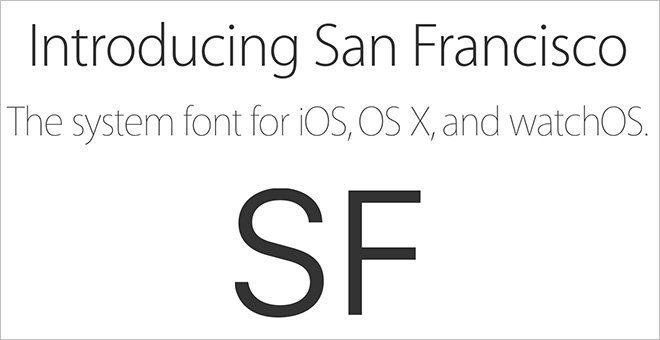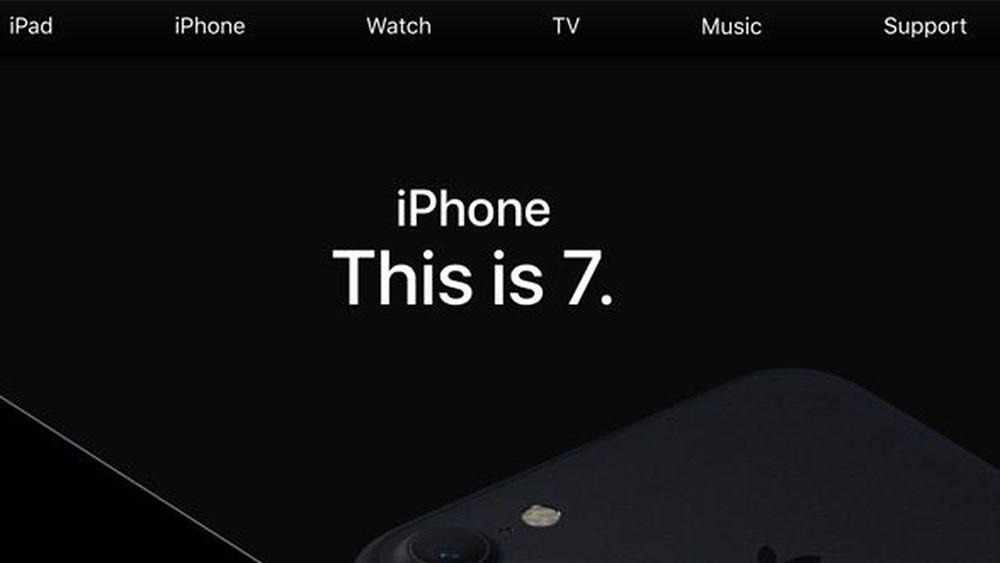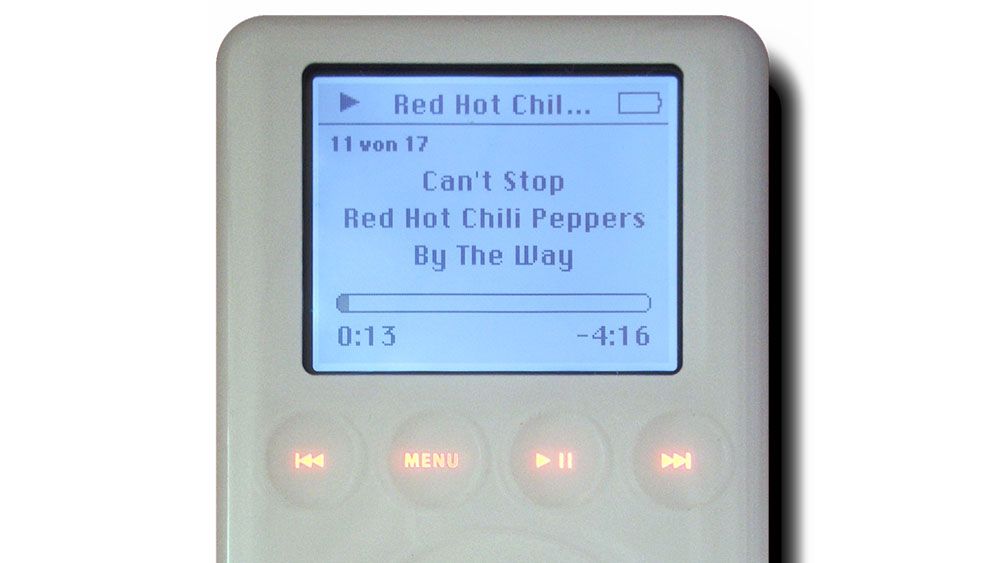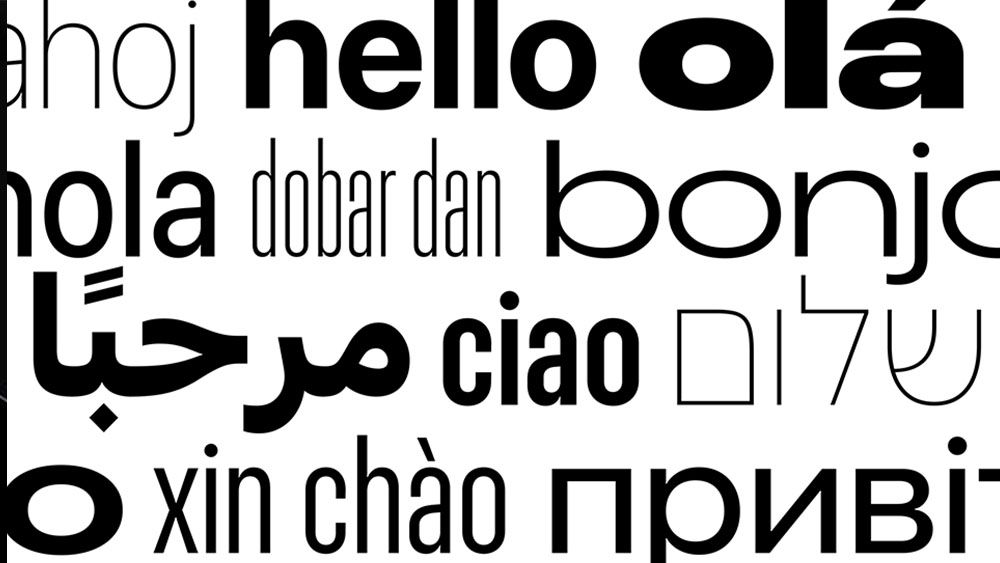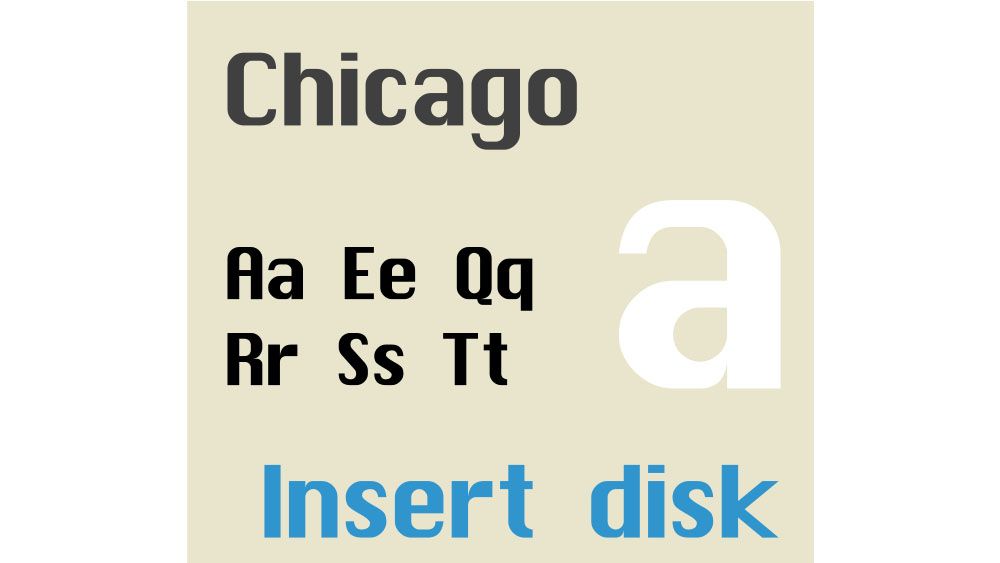
5 times Apple chose the right font (and one it got wrong)
Apple is known for sleek, minimalist design, from its products to its branding. We've already recapped the Apple logo history, but what about Apple typography? What font does Apple use to back up its brand identity?
Typography plays an important role for any brand, and that's doubly true for a tech giant like Apple, which uses type in its marketing but also in the UI design of its software. Today, Apple uses its own San Francisco typeface for both, but the Apple font history has seen some surprising and sometimes controversial decisions on the way.
A brief history of Apple fonts
This isn't an exhaustive account but six key moments in Apple typography, from its early pre-Macintosh branding to the present day brand and system typeface.
01. Motter Tektura: the future according to the late 70s
It might seem surprising now that Apple would use a non-custom typeface as its brand font, including even for its logo, but it's used subtle variations of off-the-shelf type options for much of its history.
Before the launch of the first Macintosh in 1984, the Apple logotype and product labels – most famously the Apple II – used a typeface designed by Othmar Motter of Vorarlberger Graphik in Austria 1975.
Motter Tektura might not be a household name like Helvetica or Arial, but this quirky sans serif got about a fair bit in late 1970s, making appearances in the logos of Reebok and the notebook and binder maker Trapper Keeper.
Apply modified it slightly and used the 'a' to fit into the bitemark in the Apple logo. It looks quaintly retro futurist today, but you have to imagine that in 1977 it was just futurist, conjuring up visions of an optimistic techno tomorrow.
02. Classy Apple Garamond
With the launch of the Macintosh in 1984, Apple ditched its by now slightly cartoonish vision of the future for something altogether more elegant: a narrowed custom version of a classic 17th century serif.
The brand would use Apple Garamond in its marketing for 18 years, minus a brief dally with Gill Sans. Even when Apple told us to 'think different' in the late 90s, it was with this traditional-looking font, which exudes class and refinement. The serious bookishness of the type contrasts with the vibrant colours of the rainbow Apple logo for a more mature vision of tech.
03. Modernising Myriad
Garamond might be elegant, but it screams luxury fashion more than bleeding-edge tech. In 2002, a year after launching the iPod, Apple wisely decided it was time for a more modern look to match the new device's sleek minimalism. Since sans serifs are generally considered the better choice for digital displays, sans serif it would be.
Apple's choice was Myriad, a font made for Adobe. Again, Apple had the typeface modified, which was done by Galápagos Design Group, but there are only minor spacing and weight differences from the standard version. It was clean, readable, accessible and highly adaptable, fitting a wide range of applications, even if it wasn't exactly original.
04. Pioneering Chicago
Let's go back a bit, because we should also look at Apple system fonts. We saw in our piece on why graphic designers use Macs that Apple was pioneering in its attention to typography on its early computers. That's often ascribed to the personal interest of Steve Jobs, who credited the decision to use multiple typefaces to a calligraphy class he attended at Reed College in 1972.
Created by Apple's in-house graphic designer Susan Kare, who also designed the Mac icons, Chicago was trailblazer as a custom system font. It was one of the first proportionally spaced fonts, allowing letters to take up as much or little space as needed, unlike monospace fonts. This would shape the objectives of early digital typography around legibility and user-friendly design.
On Macs, Chicago was superseded by David Berlow's Charcoal in 1997 and then Lucida Grande from 2000, but the iPod would later use a variation of Chicago.
05. The great Helvetica controversy
After pioneering the use of custom system fonts, Apple would fall back on third-party options in the 2000s. It opted for Helvetica for the iPhone, and then, for iOS 7 in 2013, the extra-thin Helvetica Neue Light.
It's not often that Apple gets design decisions wrong (apart from the Magic Mouse), but the reaction to this choice of system font was savaged. UI designers said it was too thin and light for small, lower-resolution mobile screens, and many users agreed.
Apple tried to improve things by switching to the slightly thicker Helvetica Neue, which it also used it for OS X Yosemite, unifying its system fonts, but the complaints about the poor legibility continued. Just two years later, it gave Helvetica the heave-ho.
06. San Francisco brings everything together
It's not great to switch fonts again after only two years, but Helvetica Neue just wasn't up to the job. Happily, the next phase in the Apple fonts history brought everything together with a bespoke typeface that could work as both a brand font for marketing and as a system font, unifying Apple's typography.